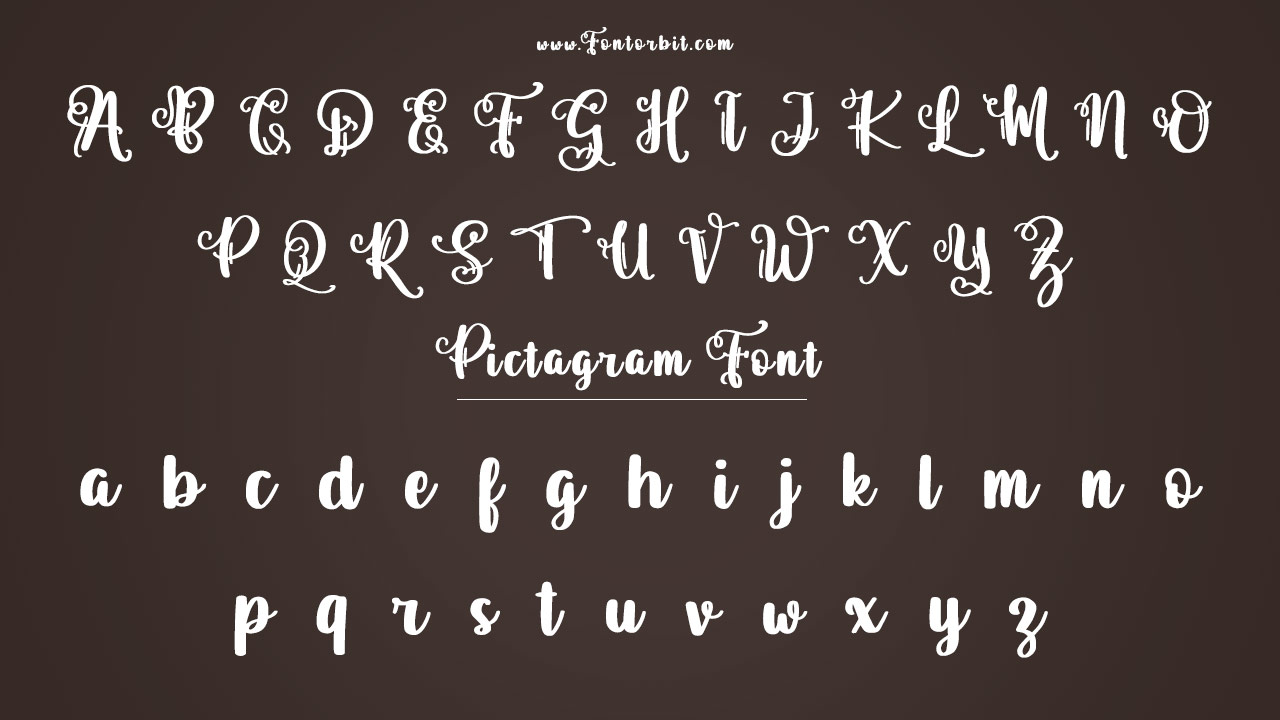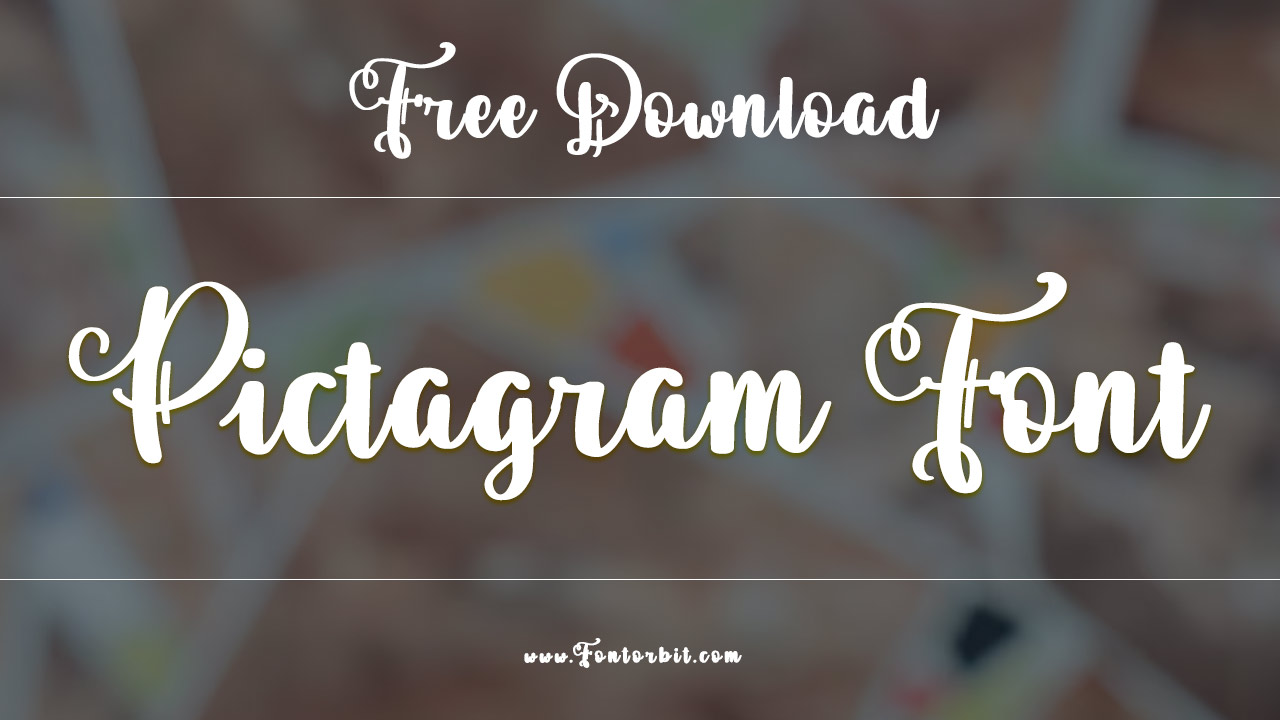
Pictagram Font, designed by Abo Daniel in 2020, is an amazing typeface created for personal use with the option to purchase a commercial version for extended features.
The pictagram font free download offers a unique handwritten script style perfect for personal projects, social media posts, covers for books, and advertisements. With its beautiful script and special characters, it’s ideal for projects that need a personal touch.
Key Takeaways:
- Pictagram Font is a handwritten script typeface.
- This amazing typeface includes special characters and is perfect for various creative projects.
| Style | Handwritten Script |
Where Pictagram Font Is In Use
- Cover books
- Social media posts
- Advertisements
- Personal projects
- Pictures
- Monograms
- Lettering designs
- Typewriter designs
4.Is Pictagram Font Suitable For Logos?
Yes, Pictagram’s script style makes it ideal for logo designs.
6.What Makes Pictagram Font Different From Other Similar Fonts?
Its handwritten style, special characters, and alternates in the premium version make it unique.
10.Is Pictagram Font Compatible With Different Languages?
Yes, it supports multiple languages.